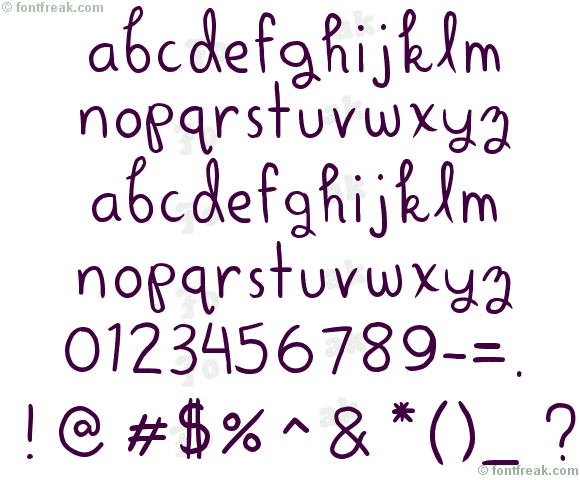
Alright Scrapbooky
Alright Scrapbooky, designed by Denise Bentulan in 2013, is a delightful handwritten font that captures a playful and casual essence. Characterized by its irregular strokes and charming imperfections, this font embodies a scrapbook aesthetic, making it perfect for various creative projects. The strokes exhibit a medium weight with subtle variations, adding a personal touch that enhances its handwritten appeal. The spacing between letters is well-balanced, ensuring readability while maintaining a relaxed vibe. The decorative elements, such as playful curls and loops, further contribute to its whimsical character, making it stand out among other fonts.
The versatility of the Alright Scrapbooky font lends itself to a range of applications. It is particularly well-suited for crafting personalized wedding invitations, where a touch of charm and individuality is desired. Additionally, this font can elevate the design of birthday party invitations, giving them a fun and informal feel. For small businesses, using Alright Scrapbooky on menus or promotional materials can create a welcoming atmosphere that resonates with customers. Content creators will find this font ideal for social media graphics and blog headers, as it can convey a friendly and engaging tone.
Targeting graphic designers, small business owners, and content creators, Alright Scrapbooky appeals to those seeking to add a unique flair to their work. Its freeware license allows for easy access and incorporation into various projects without concerns about licensing fees.
In conclusion, the Alright Scrapbooky font stands out due to its unique blend of playfulness and elegance. Its ability to convey a personal touch makes it an excellent choice for anyone looking to infuse their designs with warmth and creativity. Discover the charm of this font with an Alright Scrapbooky font free download and let your projects shine.